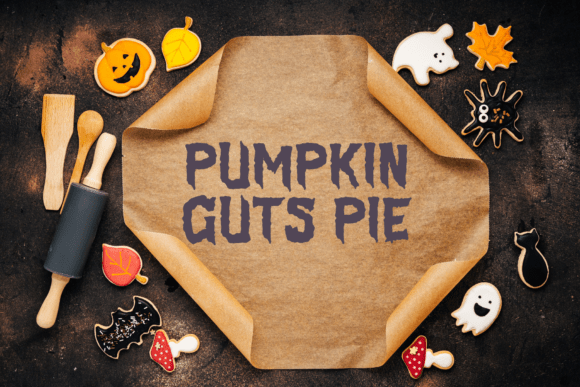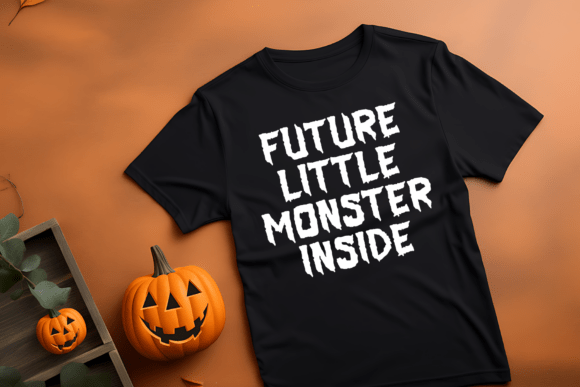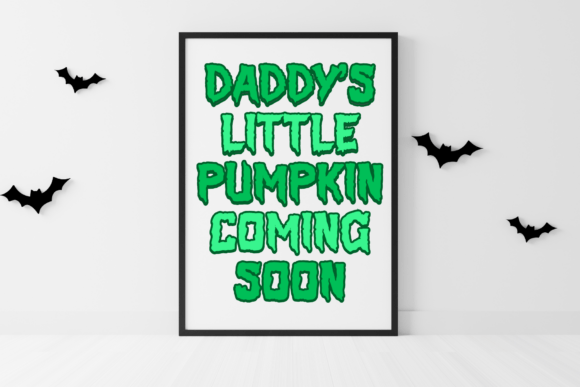
Introduction to Jagged Terror Font
As the sun sets on a crisp autumn evening, you find yourself lost in the creative world of spooky typography. The jack-o-lanterns are lit, the witches are brewing, and your design project is begging for a dash of eerie elegance. It’s in these moments that you crave a design resource that captures the essence of Halloween’s haunting charm.
Enter the Jagged Terror Font, a free download that promises to elevate your creative project with its unique blend of playfulness and authenticity. This high-quality font is perfect for designers who crave a design element that exudes Halloween spirit without sacrificing style or sophistication.
Whether you’re crafting a blog post, designing a logo, or creating a spooky invitation, the Jagged Terror Font is sure to add an extra layer of depth and creativity to your work. Its versatility and unique character make it a valuable asset for any designer looking to add a touch of Halloween magic to their projects.
Key Features of Jagged Terror Font
- Unique, distressed design with a high level of detail, ideal for creative projects requiring a gritty, post-apocalyptic aesthetic.
Honest Review: Jagged Terror Font
I recently came across the Jagged Terror Font, a design resource that caught my attention with its unique, edgy style. In this review, I’ll share my thoughts on what works well, what doesn’t, and whether it’s a good fit for your creative project.
- ✨ Unique and bold design aesthetic that adds a touch of terror to any project.
- ⚠️ Limited font styles and sizes available, which may not be suitable for complex designs.
- ⚠️ Some users may find the font too bold or overwhelming, requiring additional design elements to balance it out.
Overall, the Jagged Terror Font is a great addition to any designer’s toolkit, especially for those working on horror-themed or edgy creative projects. While it may have some limitations, its unique design and free download make it a worthwhile resource to explore.
How to Use Jagged Terror Font
The Jagged Terror Font is a unique design resource that can add an edgy touch to your creative projects. With its high-quality, bold letters, this font is perfect for making a statement in your designs.
Tips for Getting the Most Out of Jagged Terror Font
To get the most out of the Jagged Terror Font, be sure to use it on a transparent background to really make the letters stand out. You can also experiment with different font sizes and colors to create a unique look.
Common Use Cases for Jagged Terror Font
The Jagged Terror Font is perfect for a variety of creative projects, including:
- Posters